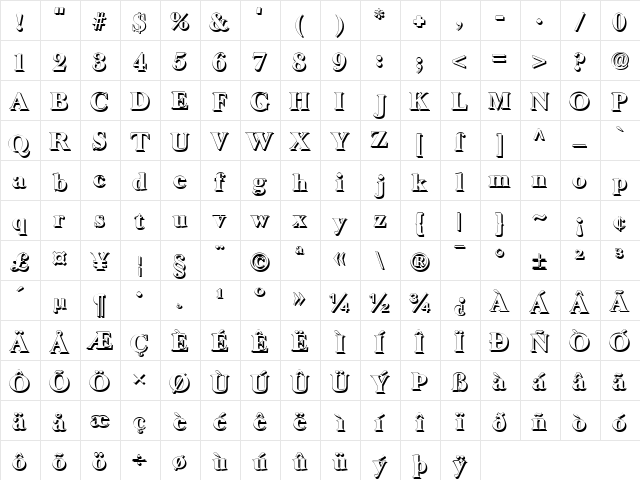
Long Island Shadow Regular
Design Context for Long Island Shadow Typeface
Long Island Shadow brings ornamental detail and strong personality to headlines and identities, where visual impact matters more than quiet functionality.
Font Pairing: Pair with a clean neutral sans-serif for body copy to let Long Island Shadow's character lead without overwhelming the composition.
Pro Tip: Use Long Island Shadow exclusively at display sizes — it was designed to be seen, not read at length. Let a neutral companion handle body copy.